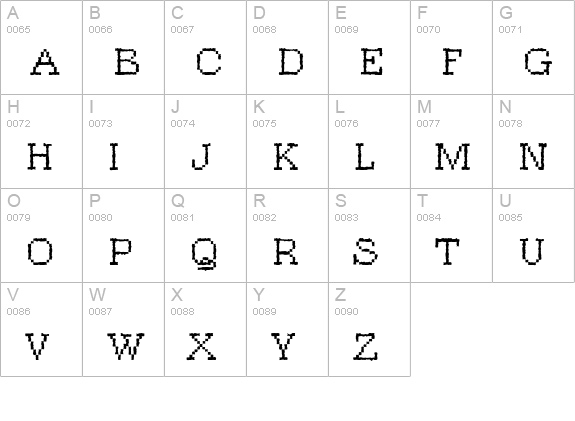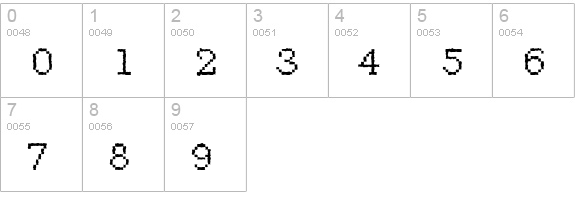
Rough17-Bold Font Details
Rough17-Bold is a strong, high-contrast variant in the Rough17 typeface family \xE2\x80\x94 well suited to headlines, attention-grabbing titles, and strong calls-to-action.
Introducing Rough17-Bold font, a bold and dynamic typeface that exudes strength and character. This eye-catching font is perfect for making a statement and grabbing attention in your design projects. Its rough edges and bold strokes give it a rugged and adventurous feel, making it ideal for projects that require a bold and daring touch. Rough17-Bold font is not only visually striking but also versatile, making it suitable for a wide range of design applications such as headlines, posters, logos, branding, and more. Whether you're looking to add a touch of boldness to your designs or make a statement with your typography, Rough17-Bold font is sure to deliver. Best of all, Rough17-Bold font is available for free download at FontsMarket.com. This means you can easily access this unique and impactful typeface to enhance your design projects without any cost. Don't miss out on the opportunity to add Rough17-Bold font to your font collection and elevate your designs with its bold and rugged aesthetic.